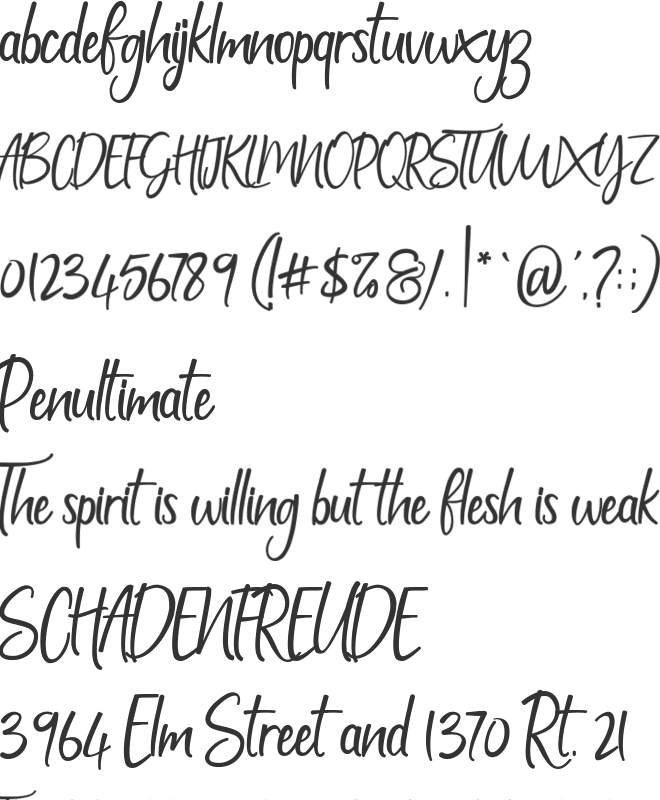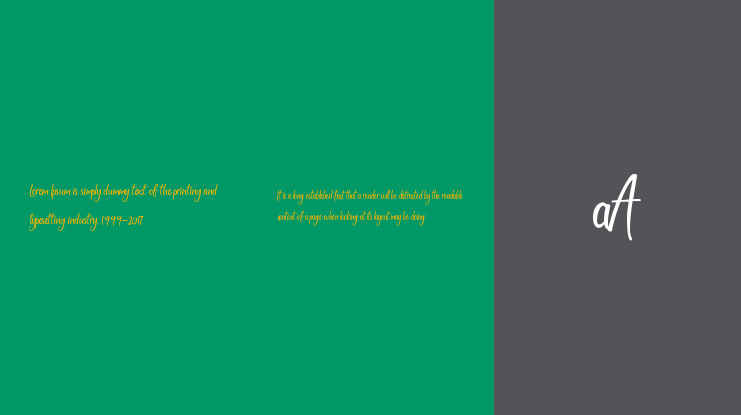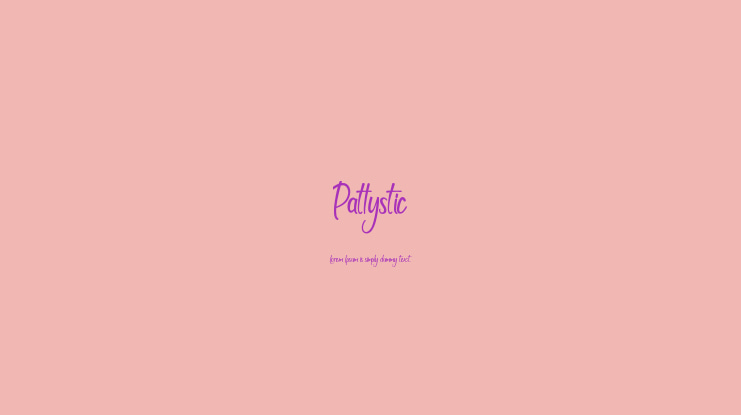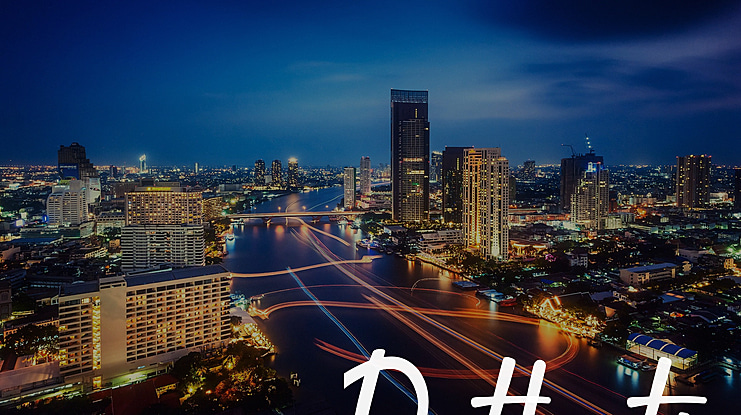
Patlystic Font
The Patlystic a Modern Handwritten Delicious Font is a 100% handwritten delicious font with which you can achieve a handwritten-type lettering feeling. The style of the font is perfect for your modern graphic design needs. This font has a really nice flow so you use it in a large text if you want to give them a touch of personality. In addition this typeface can be used on logo, invitation, stationery, wedding designs, social media posts, advertisements, product packaging, product designs, label, photography, watermark, special events or anything.